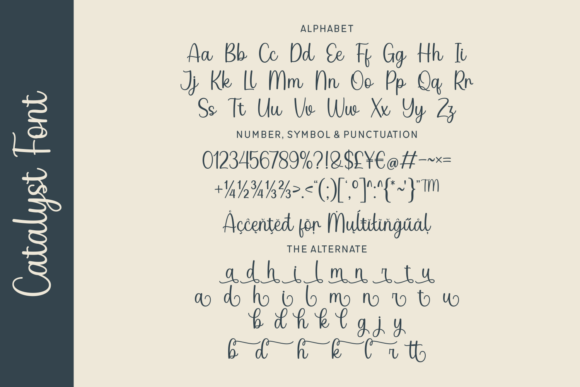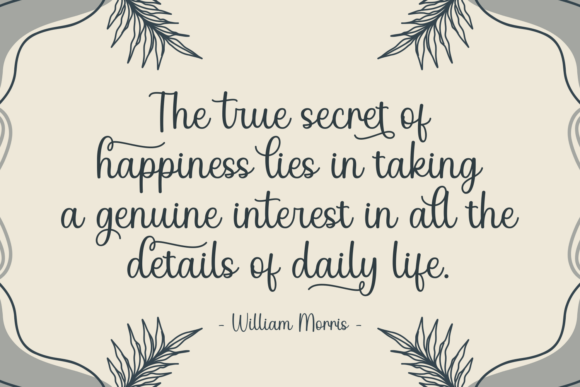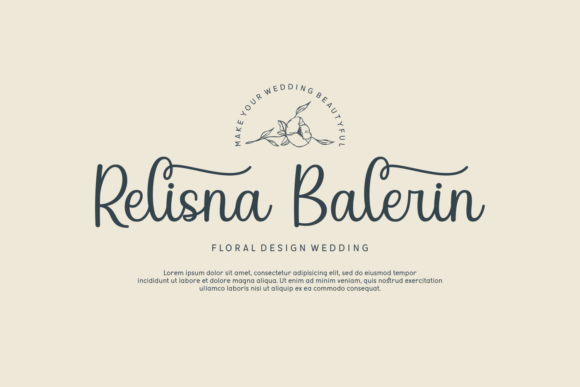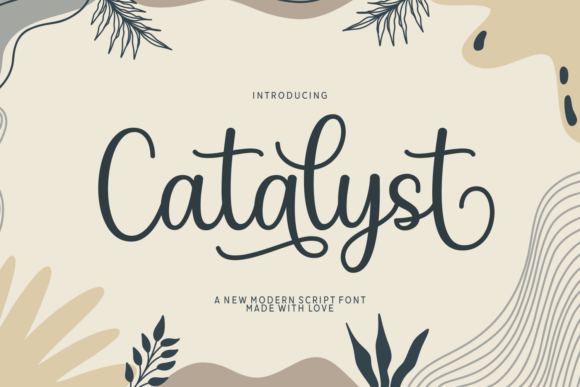
Catalyst Font: Elevate Your Designs with Elegant Swashes
In the world of typography, fonts play a crucial role in conveying the tone and personality of a design. For designers and crafters looking to add a touch of sophistication and artistry to their work, the Catalyst Font is an excellent choice. This beautiful script font features elegant swashes that instantly elevate any design, making it perfect for those seeking to make a lasting impression.
The Characteristics of Catalyst Font
Catalyst Font is distinguished by its clean lines and smooth curves, which provide a sense of fluidity and harmony to any text. The font’s base structure is rooted in traditional script typography, yet it incorporates modern elements that make it highly versatile. The most striking feature of Catalyst Font, however, is its elegant swashes. These decorative strokes add a unique and artistic flair to the font, setting it apart from more conventional typefaces.
Why Choose Catalyst Font?
There are several reasons why Catalyst Font stands out as a top choice for designers and crafters:
- Elegance and Sophistication: The clean lines and smooth curves of Catalyst Font lend an air of elegance and sophistication to any design. Whether you’re working on a branding project, a wedding invitation, or a packaging design, this font is sure to impress.
- Unique Artistic Flair: The swashes in Catalyst Font are thoughtfully designed to add a touch of artistry to your work. They can be used to create beautiful connections between words or simply as a decorative element to frame your text.
- Readability: Despite its decorative nature, Catalyst Font remains highly legible. This makes it an excellent choice for body text, headings, and titles where clarity is essential.
- Versatility: Catalyst Font can be used across a wide range of design projects. From digital content like website headers and social media graphics to print materials such as brochures, posters, and business cards, this font adapts seamlessly to various mediums.
How to Use Catalyst Font Effectively
To make the most of Catalyst Font, consider the following tips:
- Pair with Complementary Fonts: For maximum impact, pair Catalyst Font with simpler fonts that complement its elegance. A sans-serif font for body text can create a beautiful contrast and enhance readability.
- Experiment with Swashes: Don’t be afraid to get creative with the swashes. Use them to create flowing connections between words or as standalone design elements to add visual interest.
- Adjust Size and Color: Play around with the size and color of Catalyst Font to achieve the desired effect. Larger sizes with bold colors can make for stunning headings, while smaller sizes can be used for more subtle, elegant text.
Who Can Benefit from Catalyst Font?
Catalyst Font is a valuable addition to the toolkit of various professionals and hobbyists, including:
- Graphic Designers: Looking for a sophisticated yet artistic font to elevate their designs.
- Wedding Planners and Stationery Designers: Seeking elegant fonts for invitations, menus, and other wedding materials.
- Branding and Marketing Professionals: Needing a unique font that can help a brand stand out.
- Crafters and DIY Enthusiasts: Creating handmade cards, scrapbooking, or other craft projects that require a personal touch.
Catalyst Font is more than just a typeface; it’s a design statement. Its elegant swashes, clean lines, and smooth curves make it an ideal choice for anyone looking to add a touch of sophistication and artistry to their designs. Whether you’re a professional designer or a crafting enthusiast, Catalyst Font offers the versatility and beauty needed to create stunning work that stands out. With its unique blend of elegance and readability, Catalyst Font is sure to become a go-to choice for a wide range of creative projects.